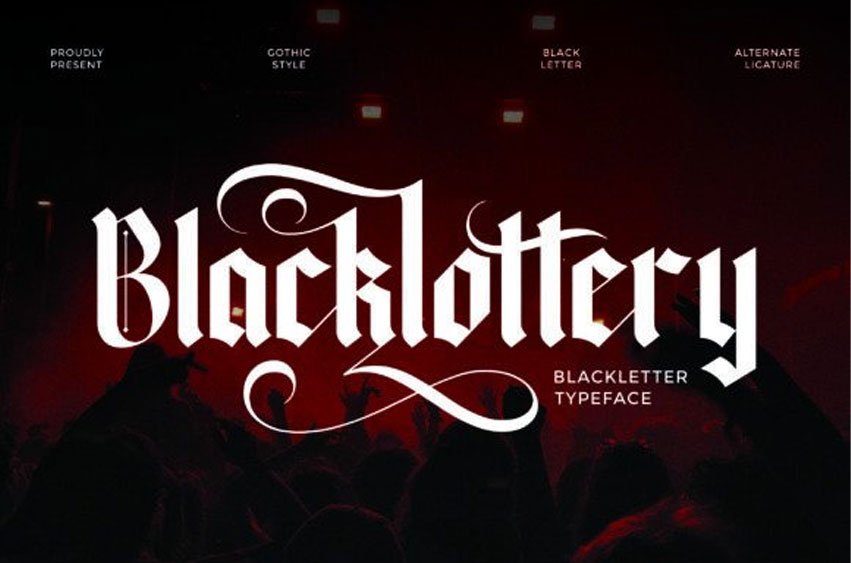
Blacklottery Font is a bold blackletter typeface that brings a strong gothic feel with dramatic strokes and intricate curves.
Inspired by medieval lettering traditions, it captures both power and elegance, making it ideal for band logos, tattoos, and vintage-inspired branding. With alternate characters and stylish ligatures, Blacklottery gives your designs a dark yet artistic edge.